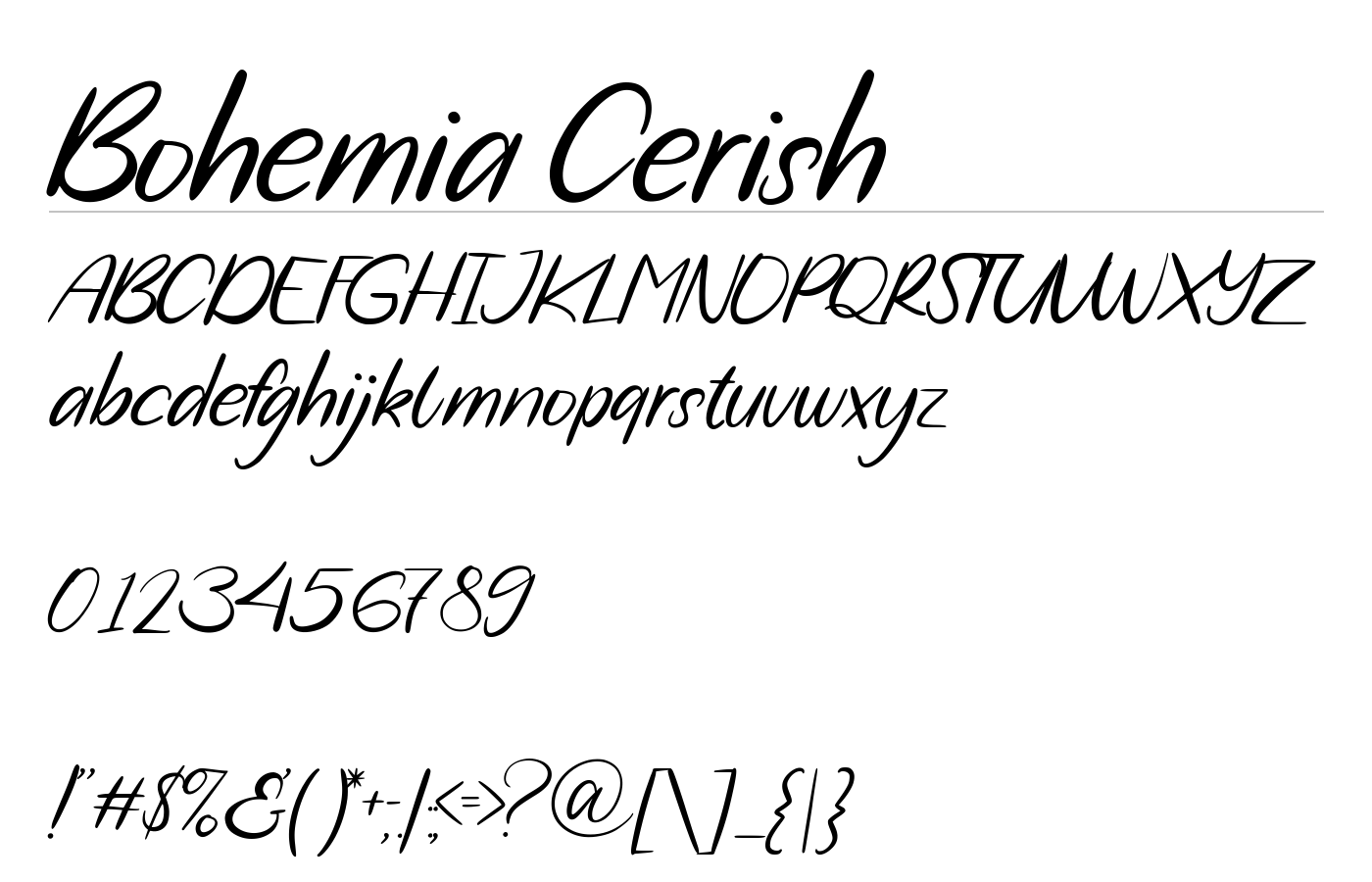
Bohemia Cerish is a stylish script font with a natural, handwritten feel, featuring slender, slightly irregular strokes that convey warmth and personality. Its flowing letterforms and elegant curves make it perfect for creative branding, invitations, and fashion-related designs where a personal, sophisticated touch is desired. This font works well in headlines and logos, adding charm and approachability without sacrificing readability.
Bohemia Cerish Font
About Bohemia Cerish Font
| Font family | Bohemia Cerish Font |